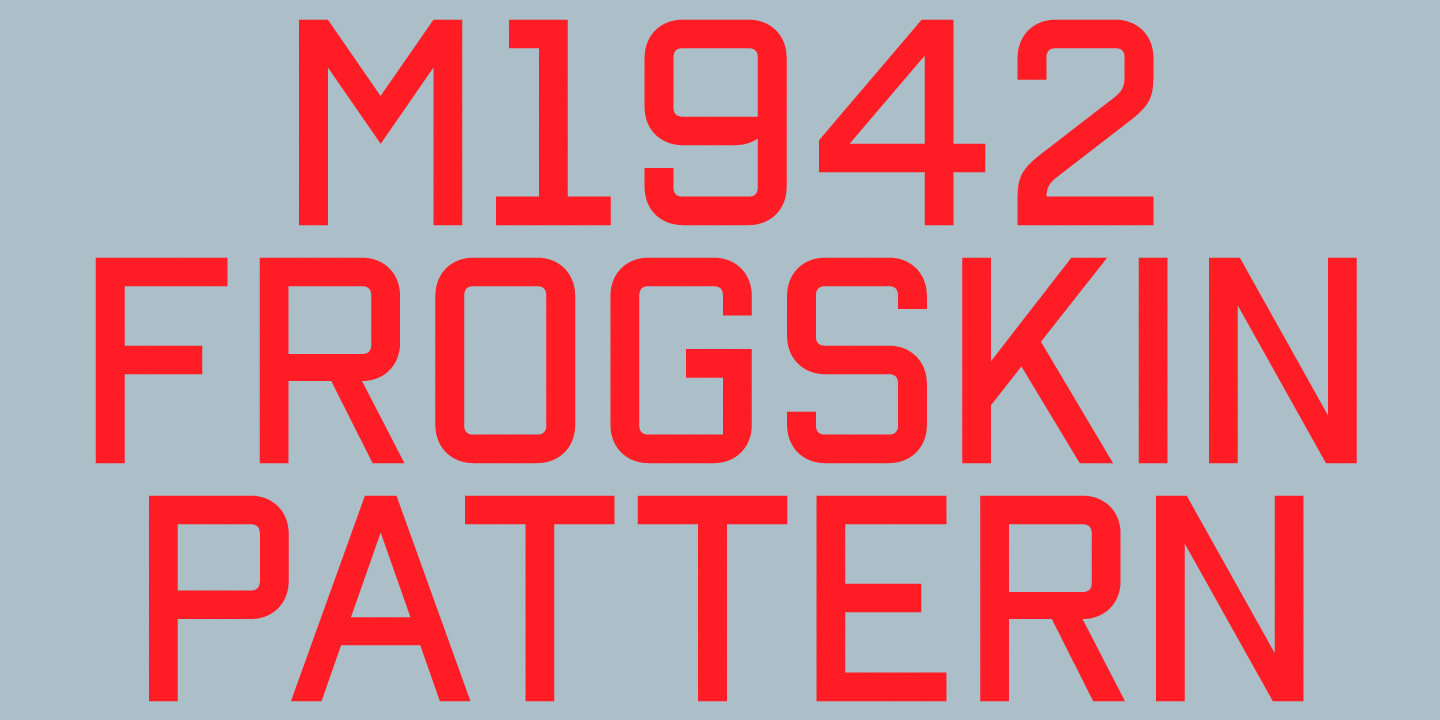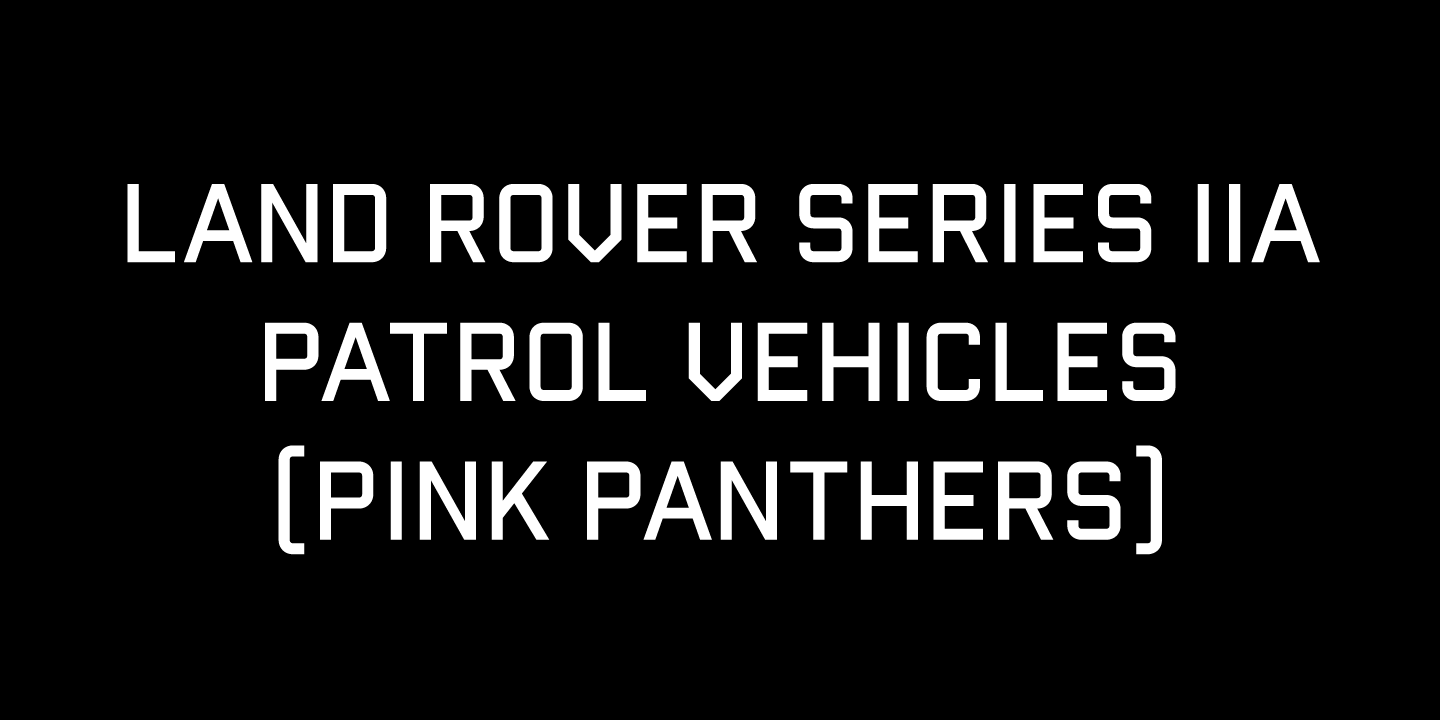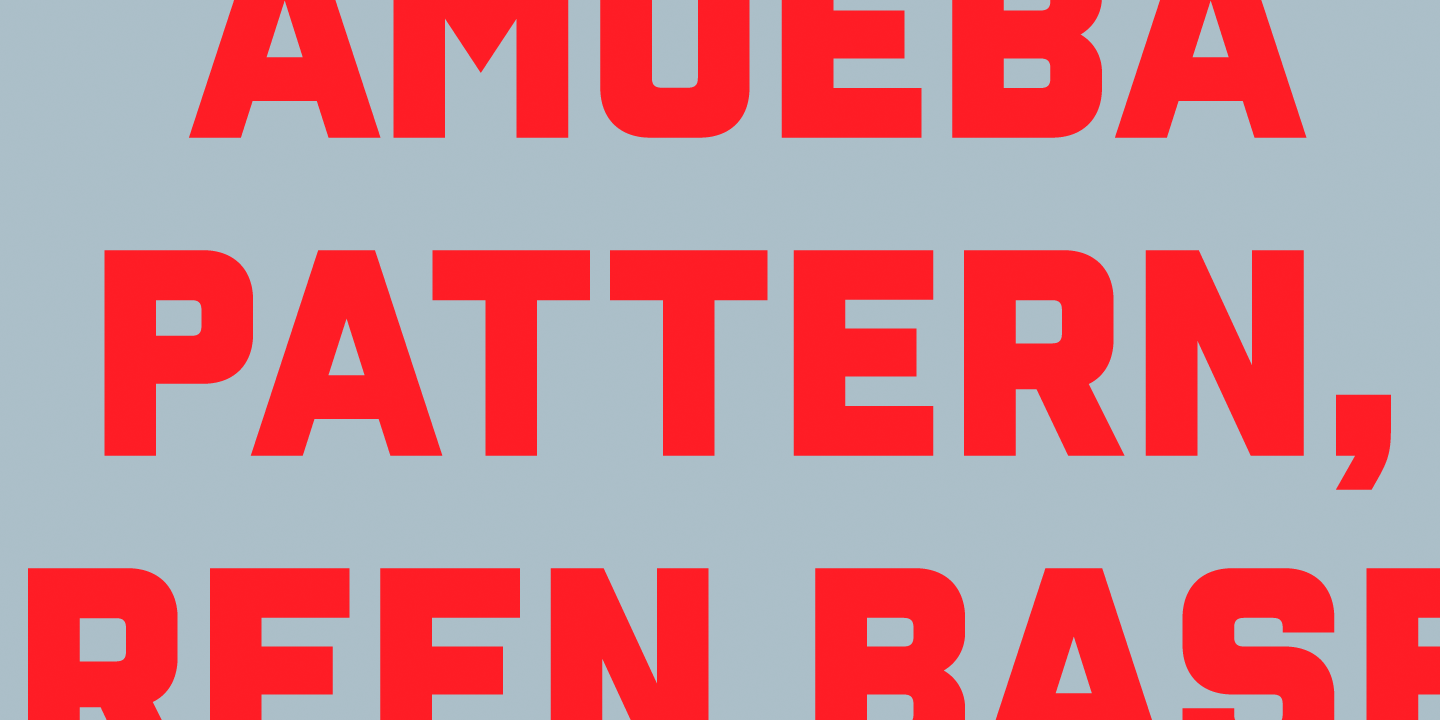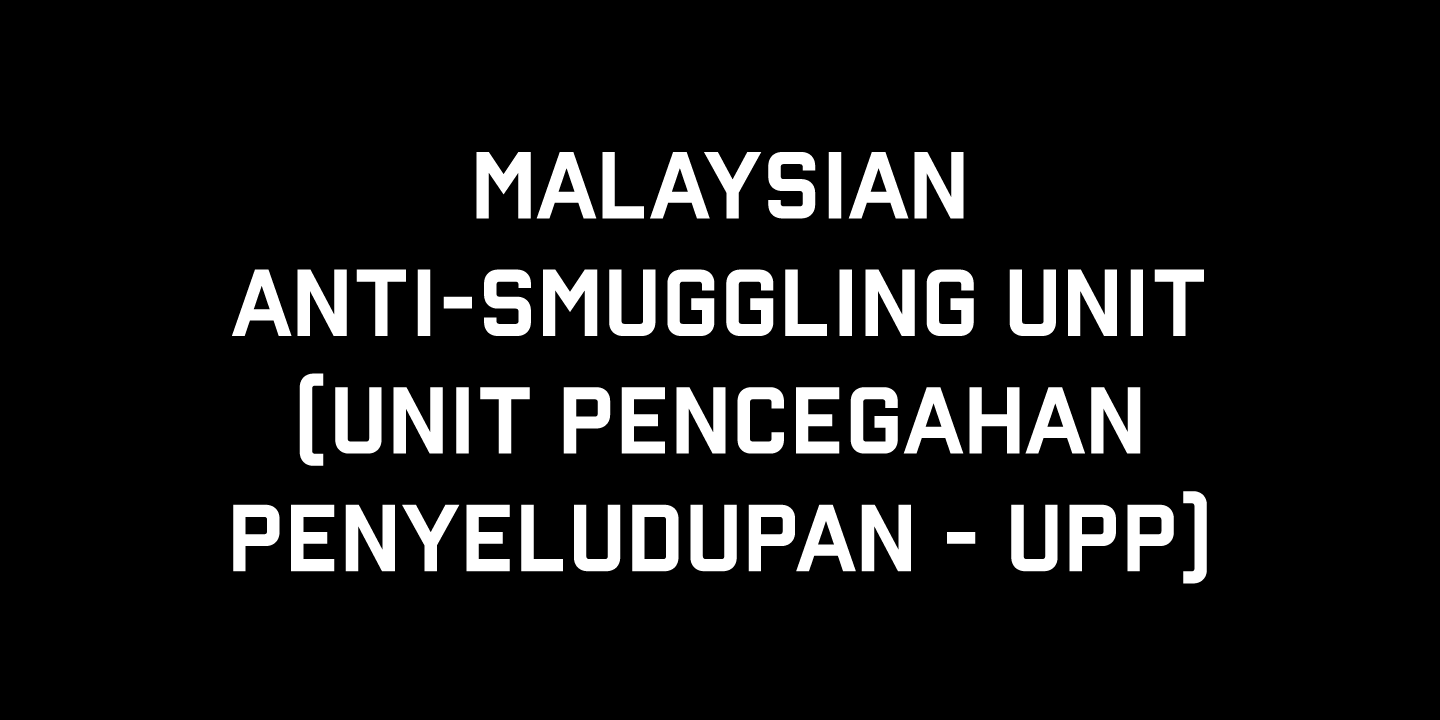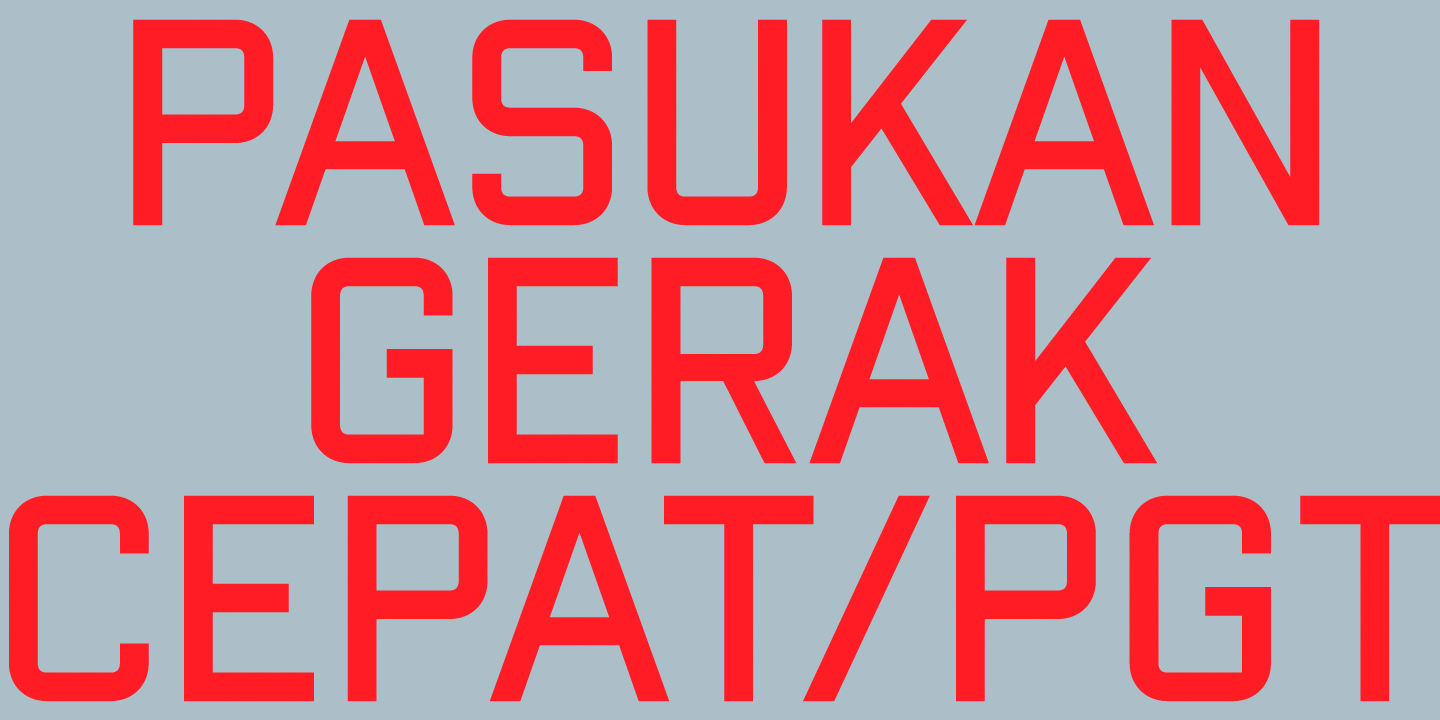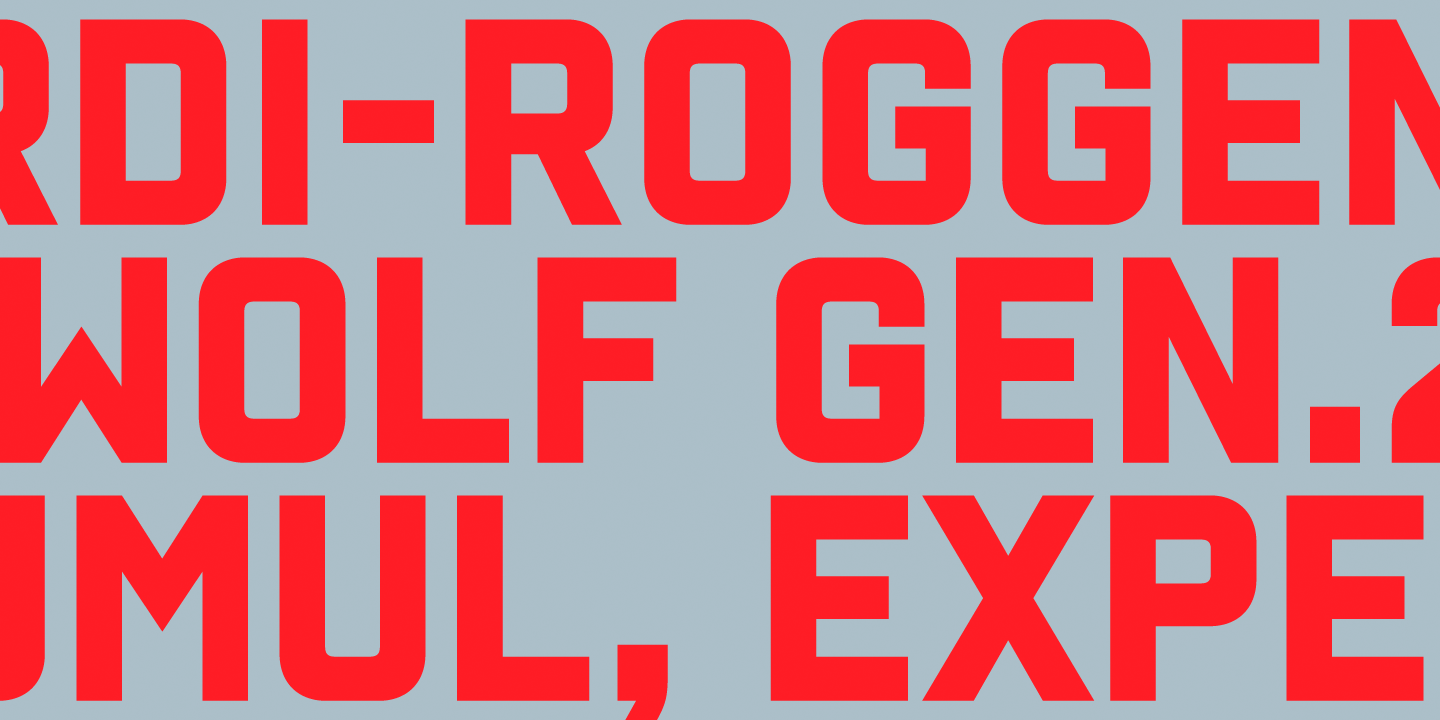
Reload Alt
Font Family by AE Type
Reload Alt is a rounded industrial geometric display typeface available in four flexible and distinct weights.
Features include:
• Slashed zero
• Romanian s accent language feature
• Extended language support